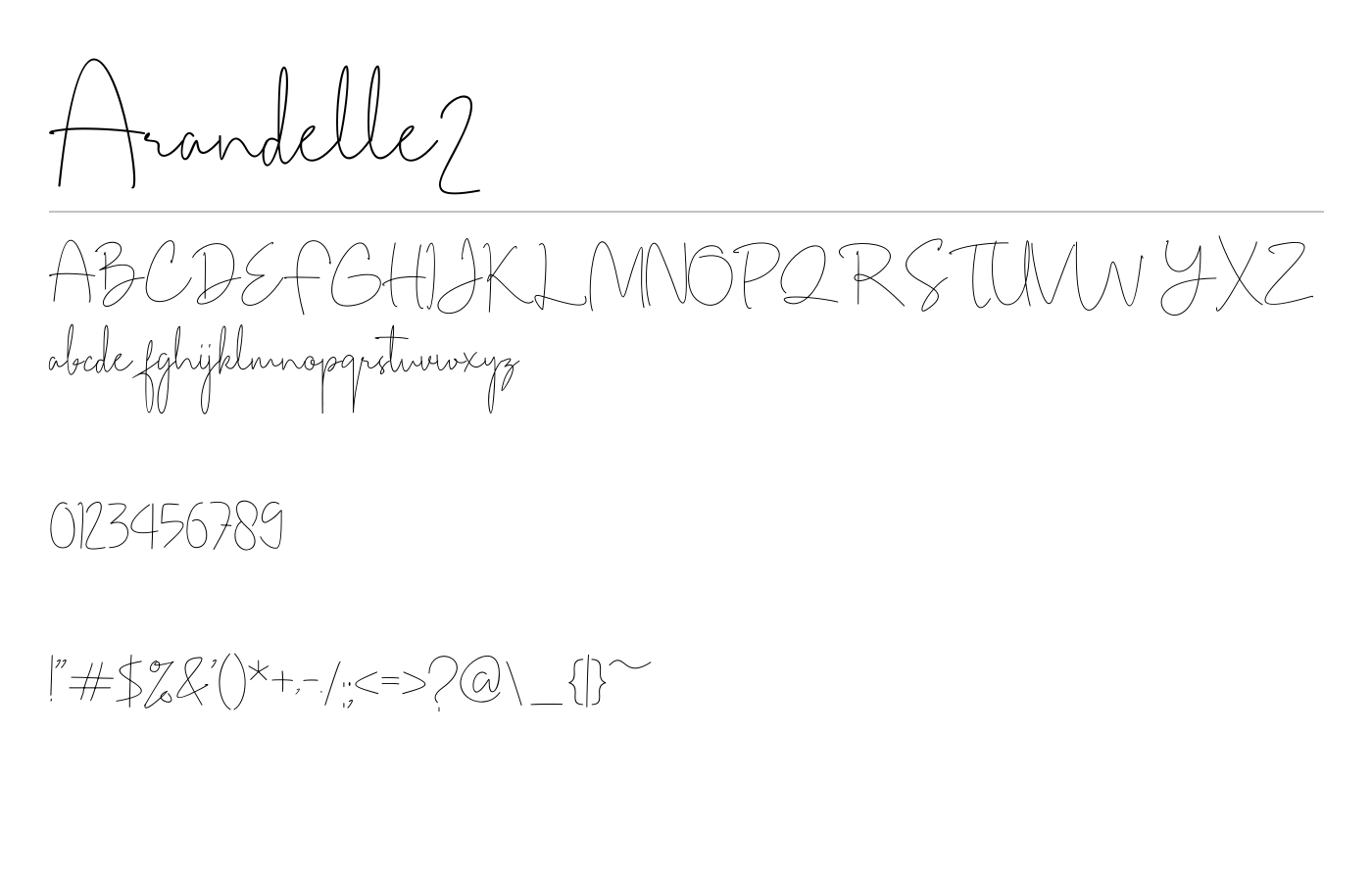
Arandelle2 is a delicate, handwritten script font with a light, airy feel created by its thin, flowing strokes and elongated letterforms. It combines an elegant, casual style with a sense of personal touch, making it ideal for invitations, branding, and creative projects that seek a refined yet approachable vibe. This font shines in designs that need a stylish, modern handwritten look without overpowering the overall composition.
Arandelle2 Font
About Arandelle2 Font